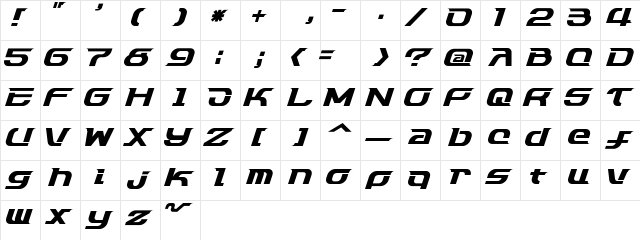
Dash9812 Regular Font Preview
Dash9812 Regular
Dash9812 Regular Font Details
Design Context for Dash9812 Typeface
Dash9812 takes a measured approach to typography — its balanced proportions and neutral character make it a reliable workhorse for both digital and print work.